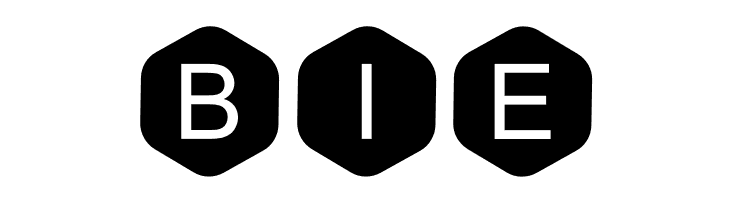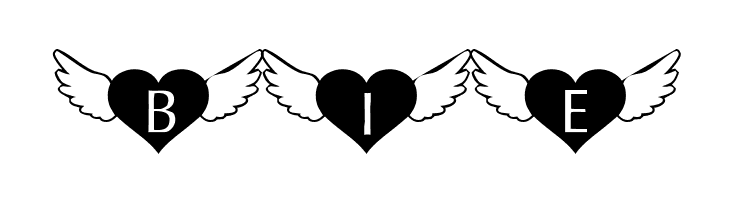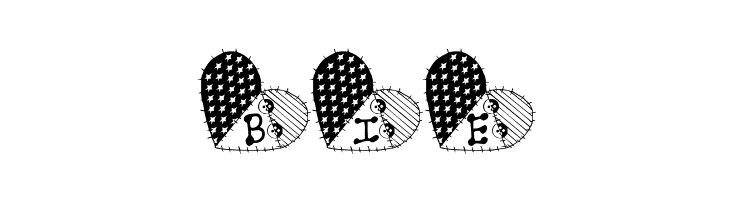
A modern, geometric sans-serif font with clean lines and uniform stroke width.
A modern, geometric sans-serif font with clean lines and consistent stroke width.
A bold, geometric font with characters encased in hexagonal shapes, offering a modern and playful aesthetic.
A whimsical font with characters enclosed in heart shapes with wings.
A whimsical font with characters inside patchwork hearts, ideal for creative projects.
A modern geometric sans-serif font with clean lines and a minimalist aesthetic.
A bold, geometric font with high contrast and strong visual impact.
A bold, geometric font with a modern and structured design.
A bold, geometric sans-serif font with a modern and structured design.
A modern, geometric sans-serif font with a clean and structured appearance.